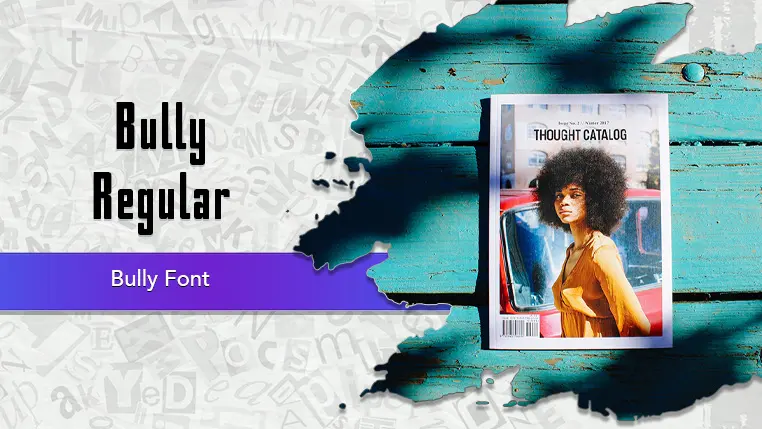
The Bully font family may be ideal for you if you enjoy working on an artistic design project. The lively, expressive look of this typeface, which was created by Aigul Gilmutdinova & Jovanny Lemonad, makes it ideal for Branding and Corporate Identity(Company logos , Corporate websites and internal documents, Packaging design for modern products, Annual reports and branding guidelines), Editorial Design(Magazine layouts, Newspaper articles and advertisements) and other light-hearted visual projects.
Regular are the one primary font styles of the Bully font family. You may build dynamic, visually appealing text layouts with the distinct flair that each style offers. With crisp, readable lines and a relaxed tone.